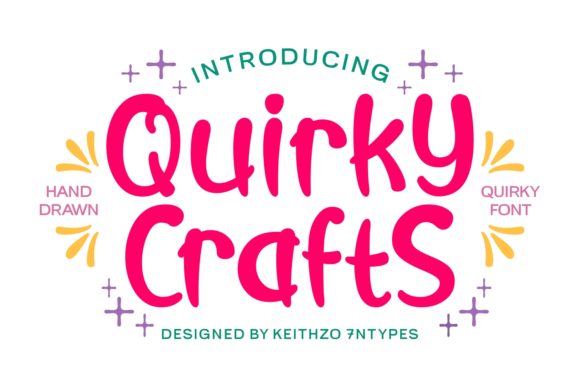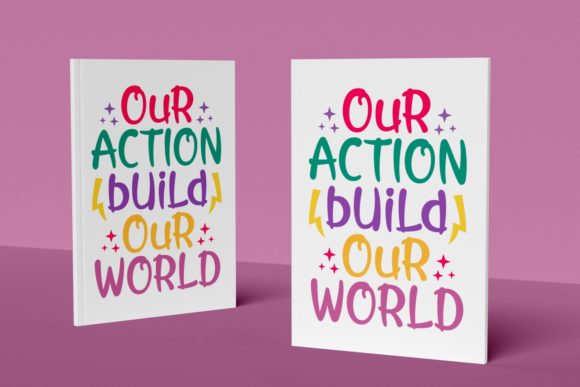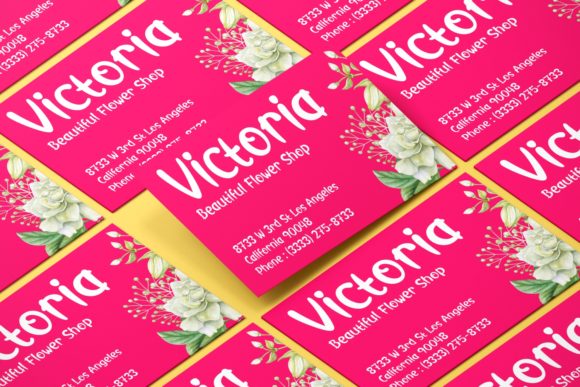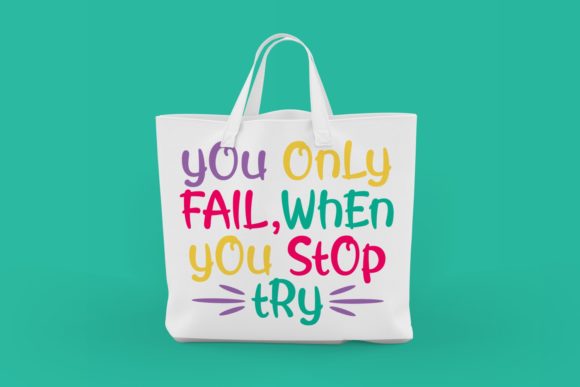
About Quirky Crafts Font
Quirky Crafts is a fun, joyful and friendly handwritten font. It embodies playfulness and authenticity and is the perfect choice for any children activity or school project.